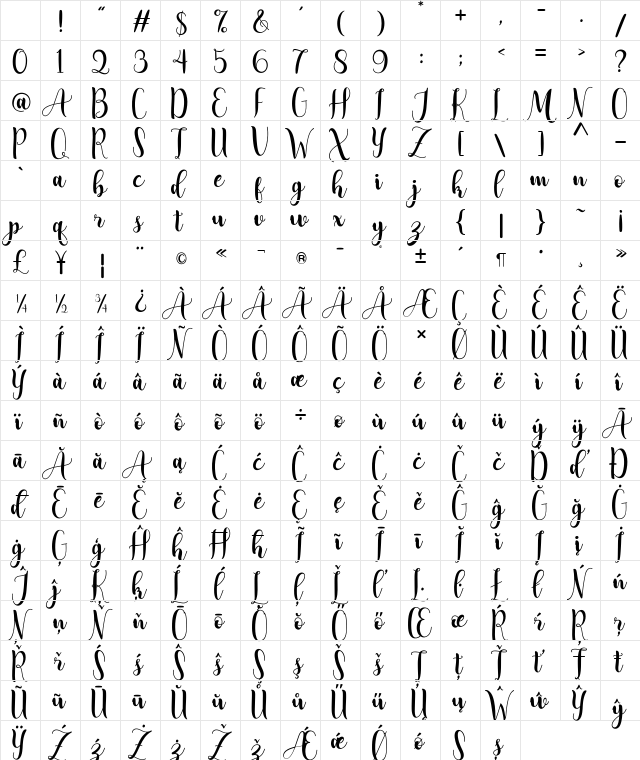
Complete Adreena Script Demo Regular glyph index. Displaying only characters natively supported by Adreena Script Demo Regular font.
Adreena Script Demo flows with the natural rhythm of handwritten lettering, making it ideal for designs that call for warmth and personal expression.
Font Pairing: Combine Adreena Script Demo with a simple geometric sans for maximum contrast - the tension between flowing curves and clean structure is a classic typographic pairing.
Pro Tip: Use Adreena Script Demo for short runs of text - names, titles, or taglines. Extended body copy in script faces tires the eye quickly.